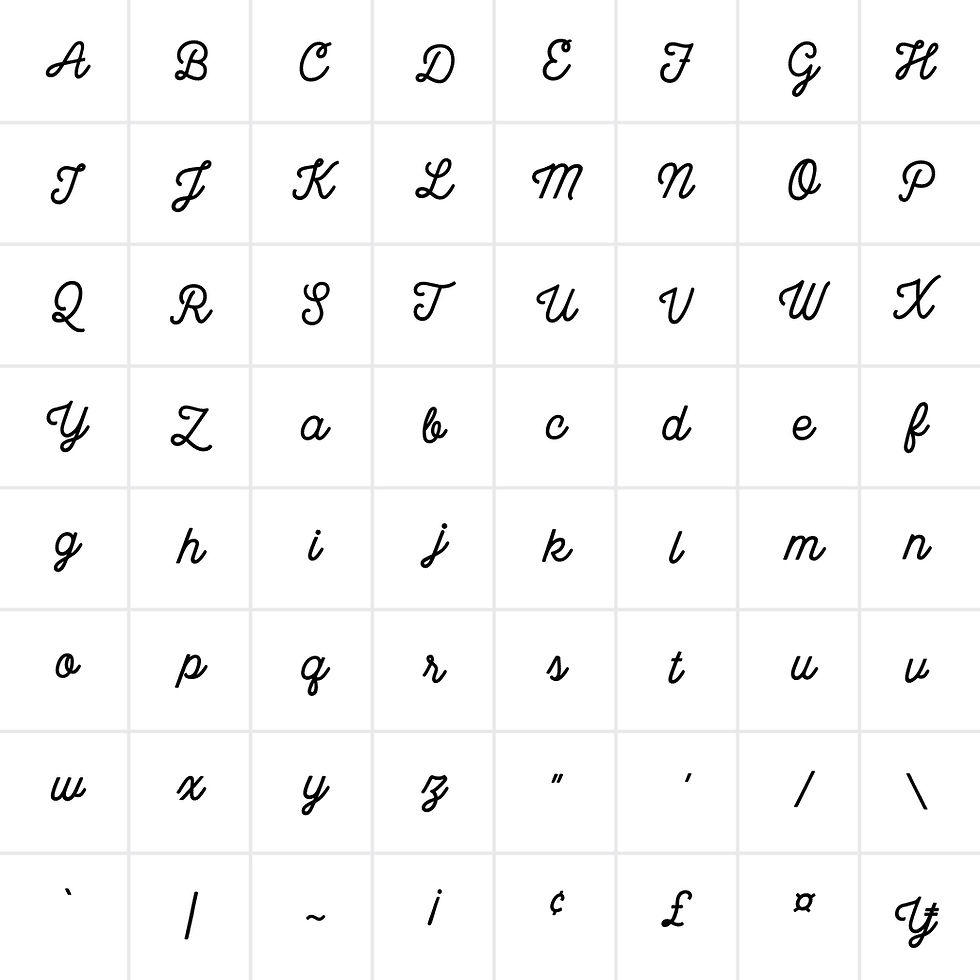
LOCAL BREWERY BOLD FONT is a vintage inspired script font that includes lower case alternate tails. These alternate tails will give your designs an extra flair and uniqueness.
LOCAL BREWERY BOLD FONT is handwritten and comes with Latin Pro Characters.
Local Brewery Bold Font
LIGATURES